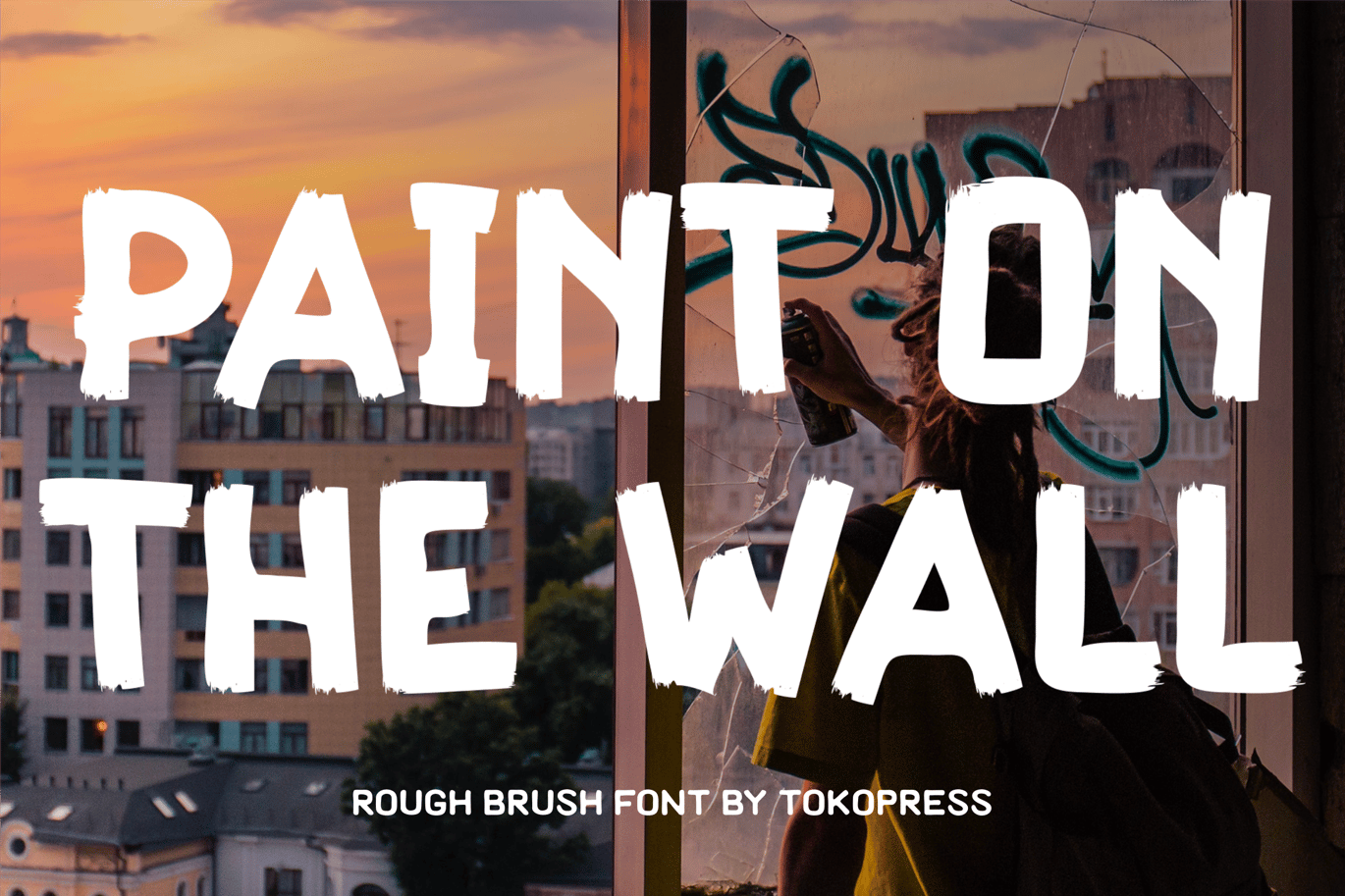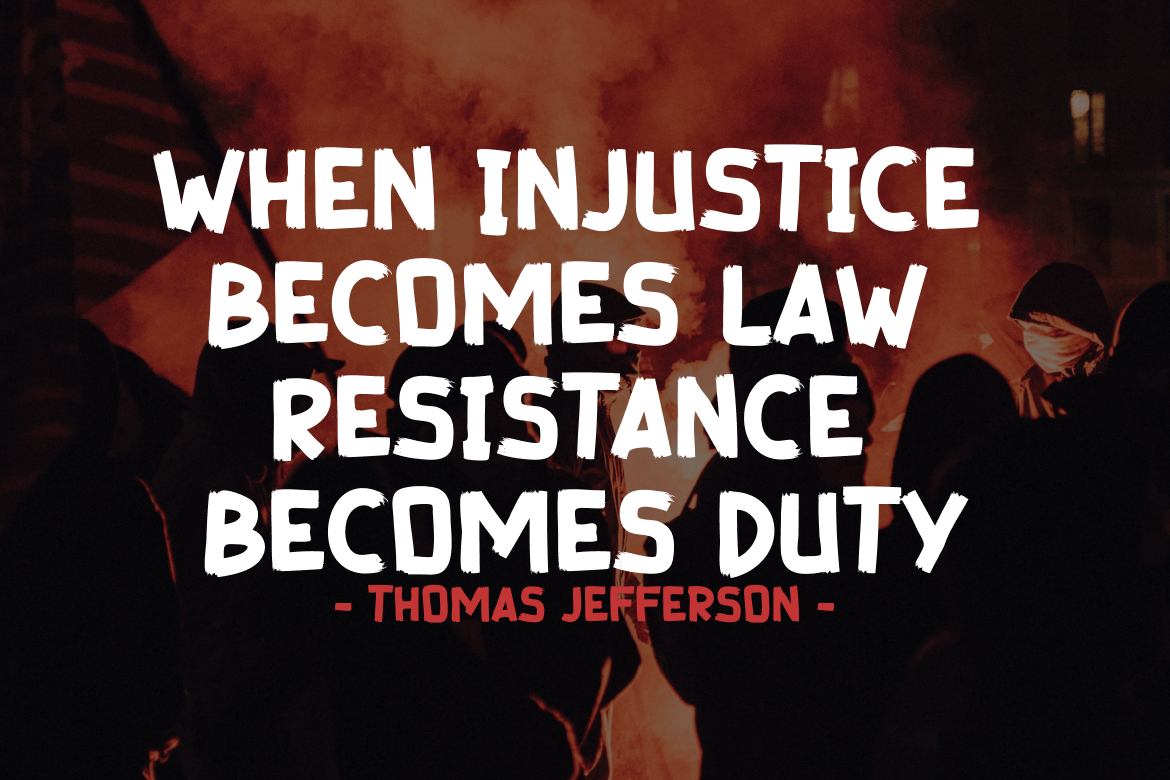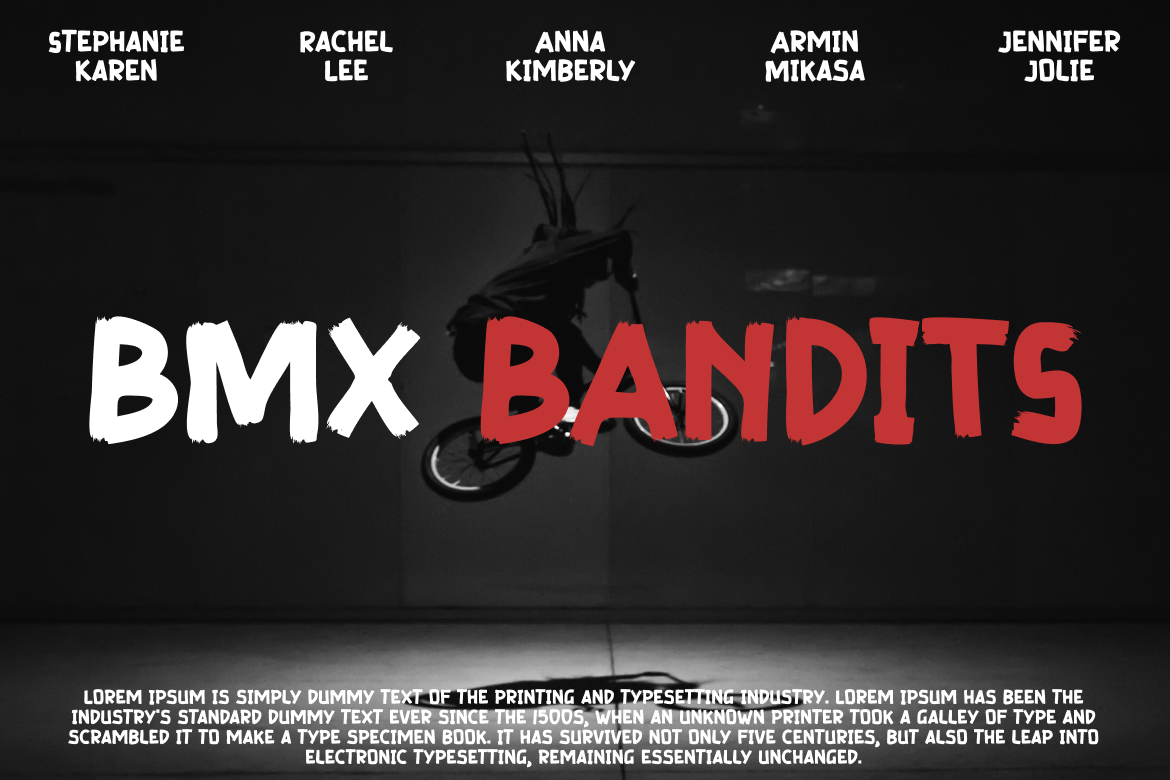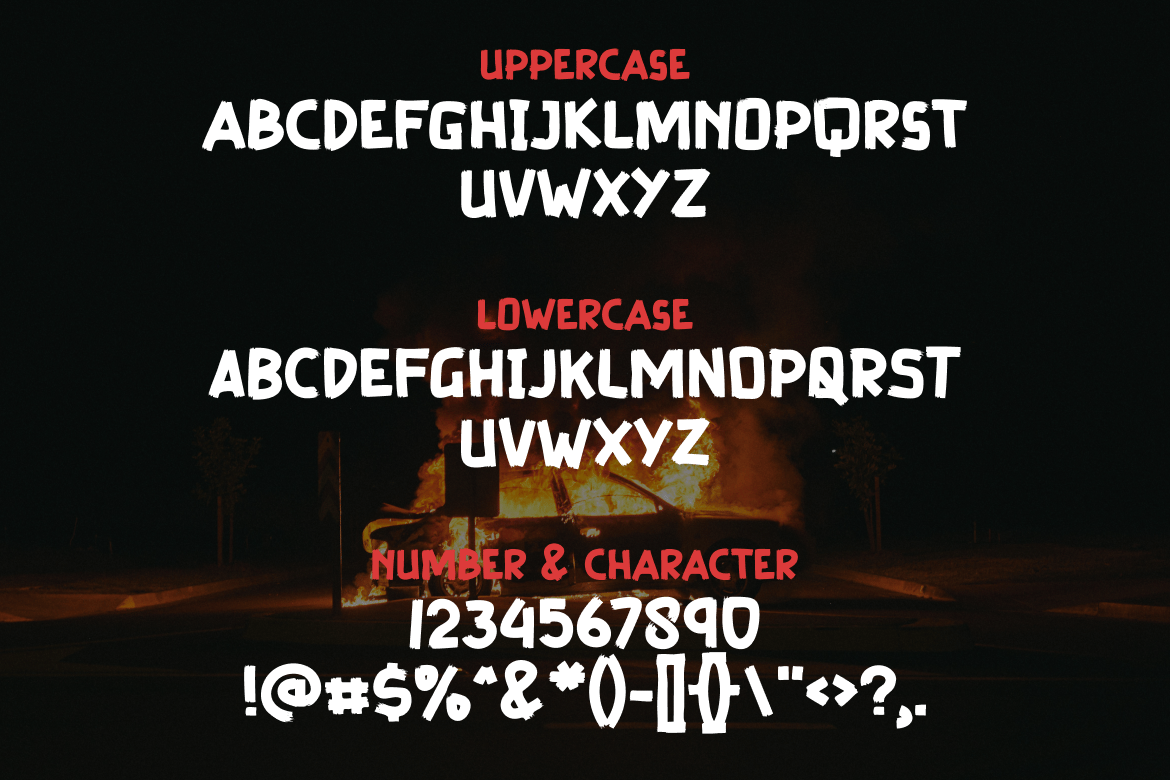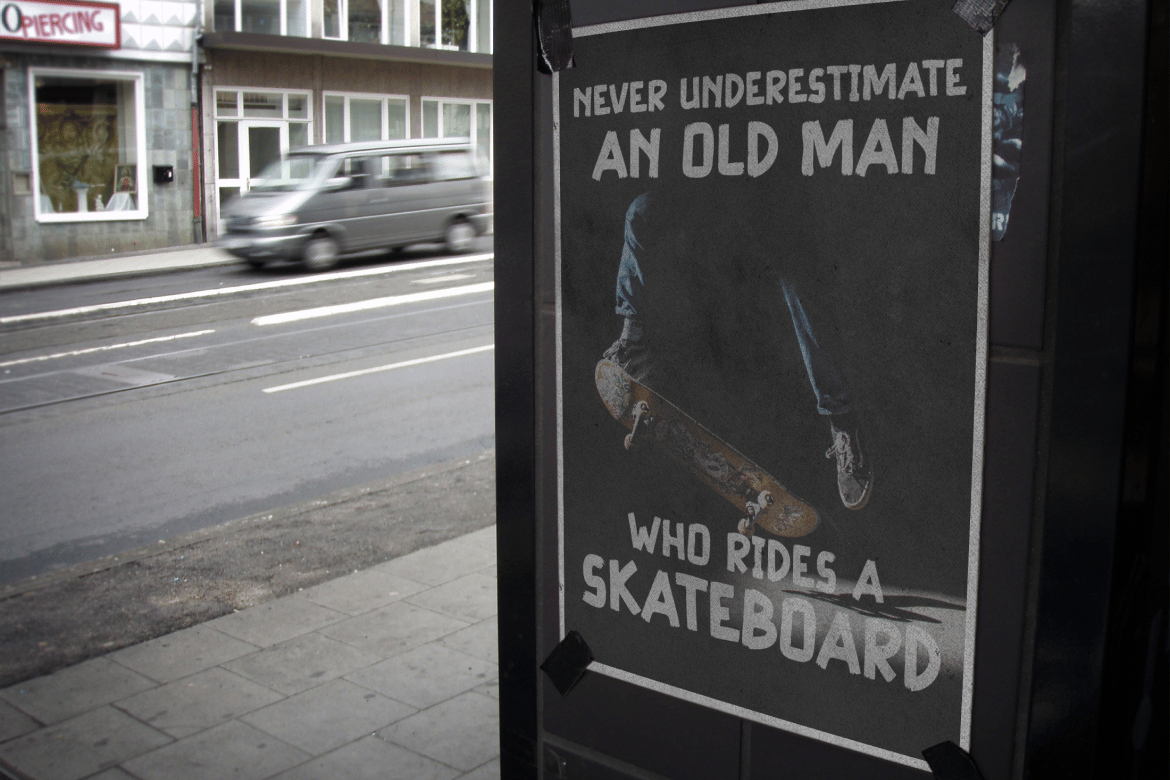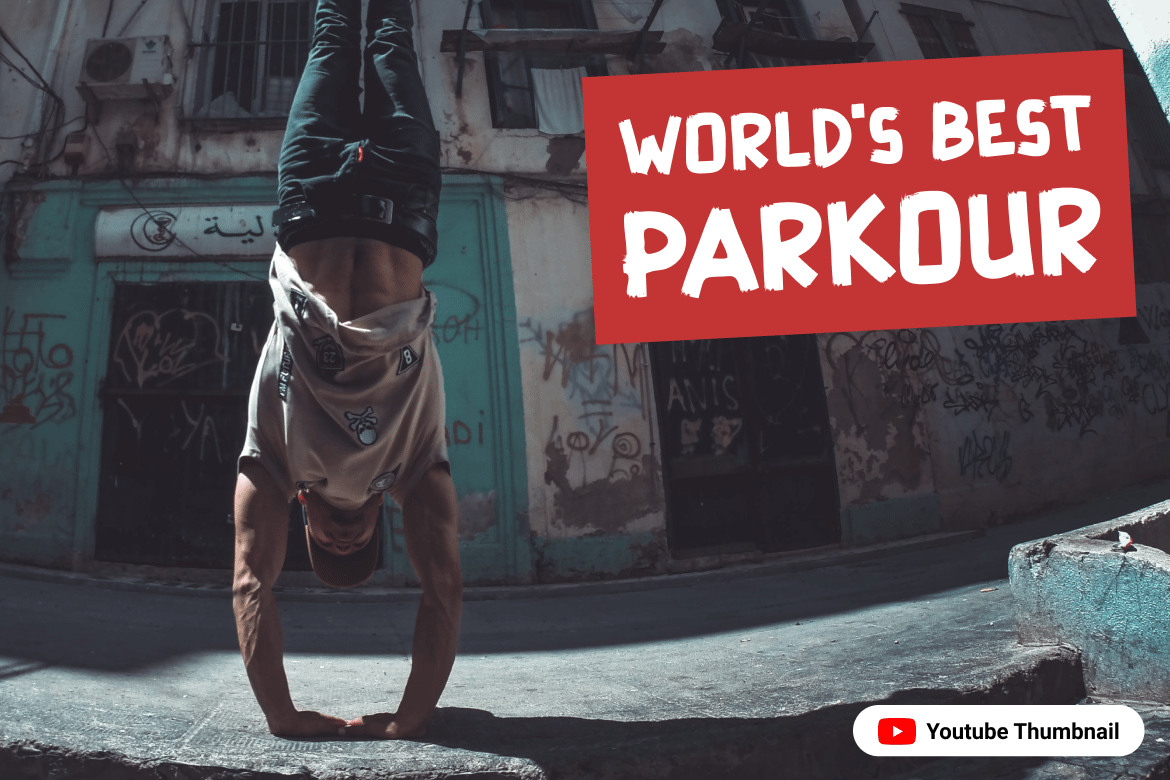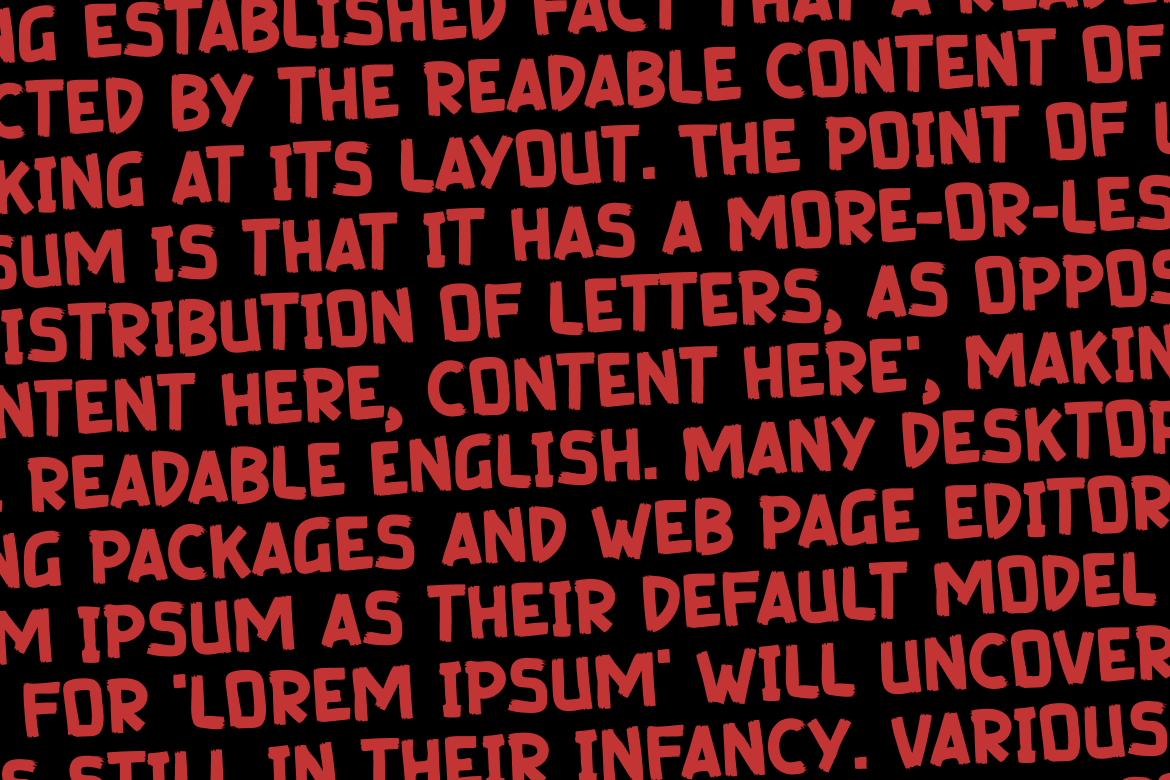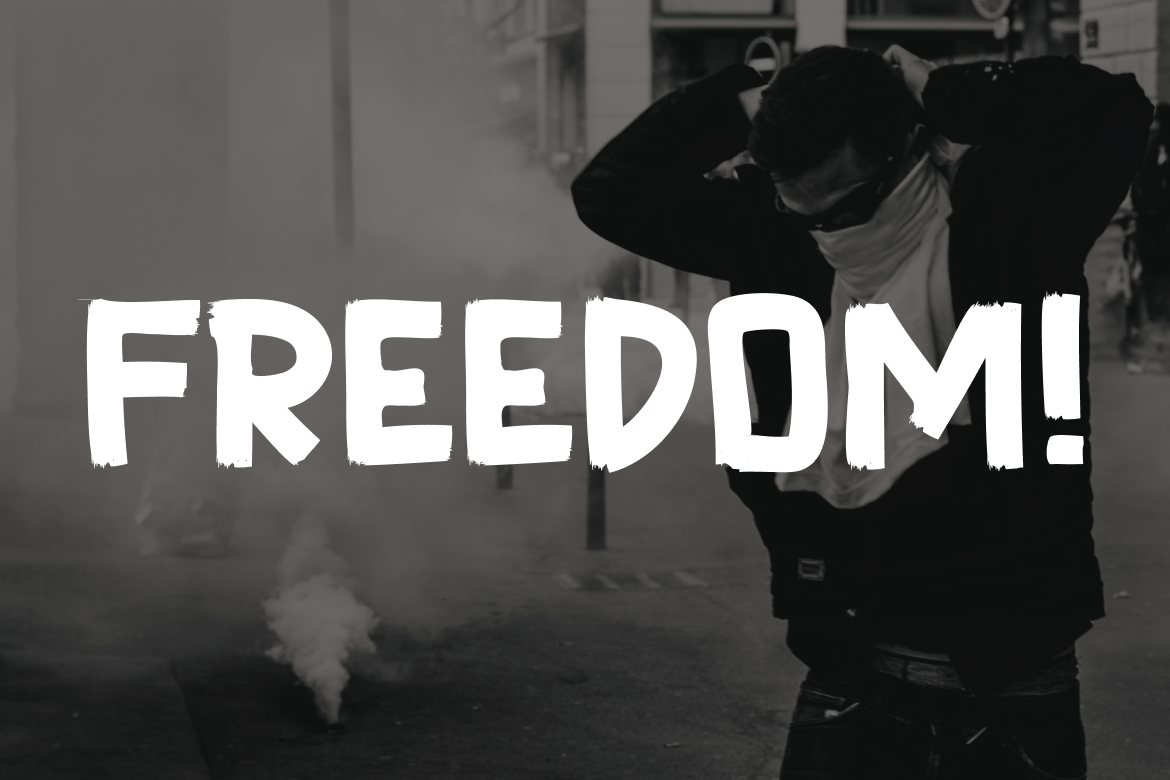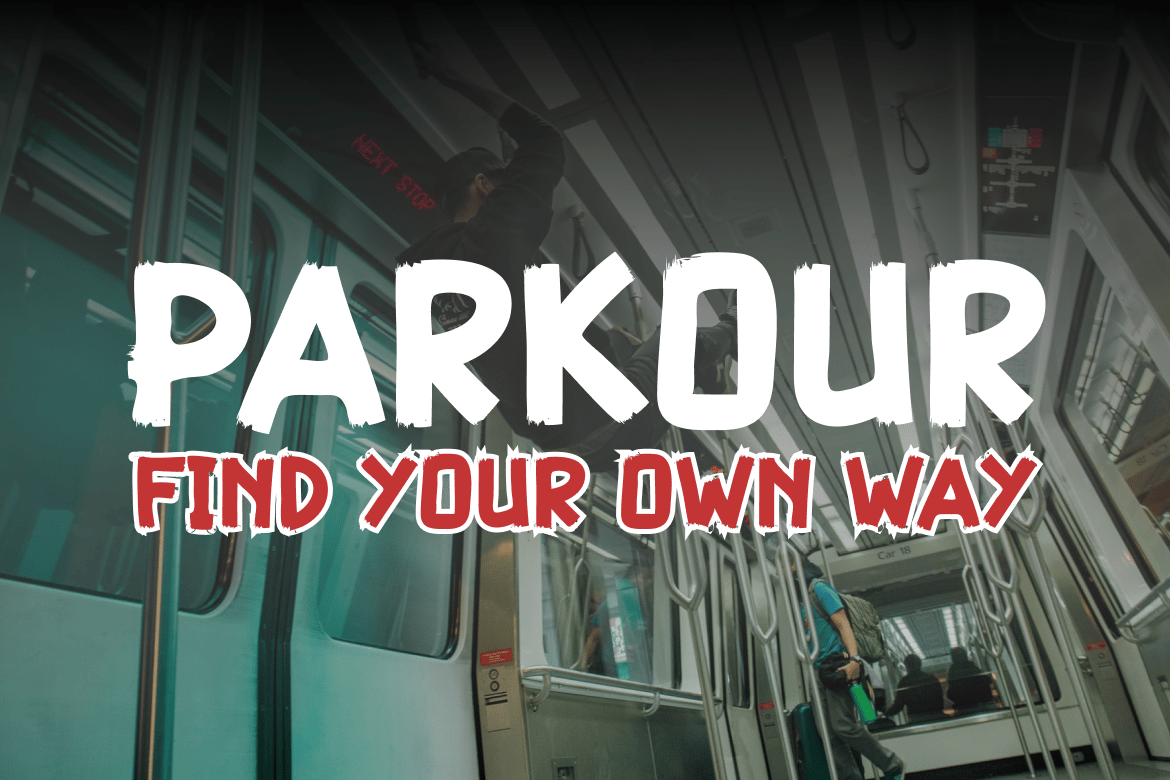
Paint on the Wall – Rough brush font
Like a rough pain, being drag to send the message. Paint on the Wall bring the edgy and harsh word into reality.
Suit perfectly for protest, rebelious and extreme sport segmented magazine, poster, movie title, music poster, youtube covers, youtube thumbnails, social media page covers and so on…